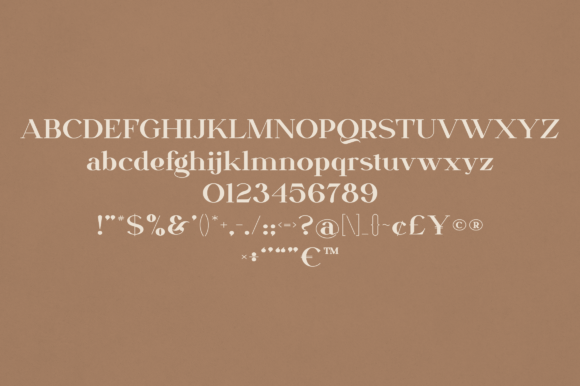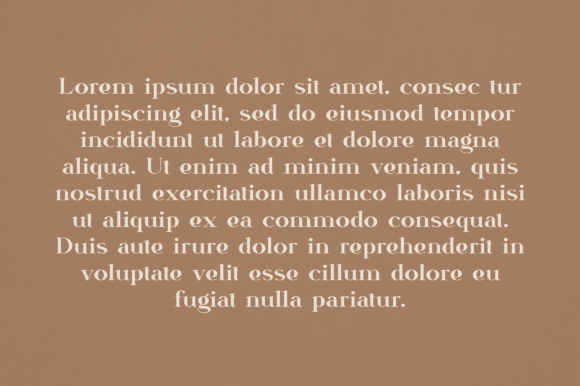
Introduction to Saige Font Font
Fonts play a crucial role in design, and the Saige Font font is a typeface that brings both character and versatility to any project. Whether you’re working on a branding project, a website, or a print design, the Saige Font font offers a unique style that can elevate your work.
Saige is an elegant and versatile font that will make your typography truly unique.
It will enchant every logo, branding, headline, or plain text This font is perfect for branding projects, home-ware designs, product packaging, magazine headers – or simply as a stylish text overlay to any background image.
Key Features of Saige Font Font
Why Choose Saige Font Font?
The Saige Font font is more than just a typeface – it’s a design tool that helps you communicate your message with style and clarity. Its unique character set and versatile design make it suitable for a wide range of applications, from elegant invitations to bold headlines.
With its carefully crafted letterforms and balanced proportions, the Saige Font font ensures readability and visual appeal across all mediums.
What makes Saige Font font special?
The Saige Font font stands out with its unique design, exceptional readability, and versatility across various design applications.